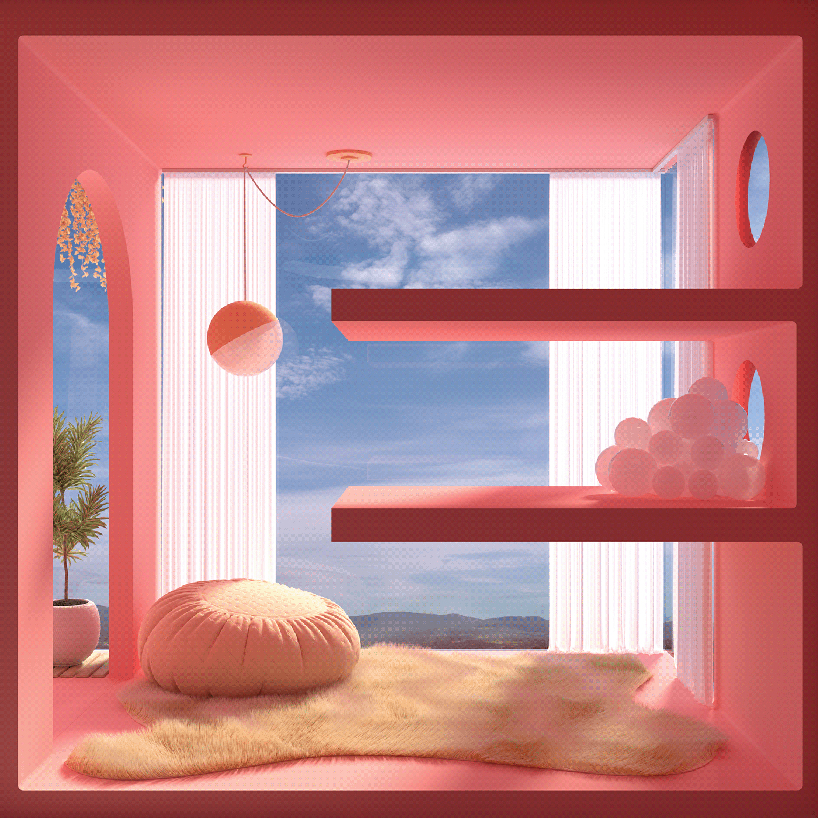
seba morales reinterprets typography to envision HOME in cheerful pink
the series by seba morales expresses the message of HOME, a cheerful reminder to value our own spaces during this unprecedented era.
a sign of solidarity and unity during the coronavirus era, digital artist seba morales presents HOME — a hybrid interpretation of typography and occupiable space. the project is born of an initiative by typographic designer alejandro paul to play with the word ‘home’ using a font by his studio, sudtipos foundry. the argentina-based digital artist envisions a series of four panels, each housing a luminous, playfully designed space in glowing pink.
when organized as a collection of four panels, the series by seba morales most clearly expresses the message of HOME, a cheerful reminder to value our own spaces during this unprecedented era. each of the four letters in turn becomes abstracted when views on its own. the boundaries of each letter are formalized into partitions, shelving elements, and filleted wall thicknesses. the collaborative project is conceived by alejandro paul, director of typographic design studio sudtipos foundry.